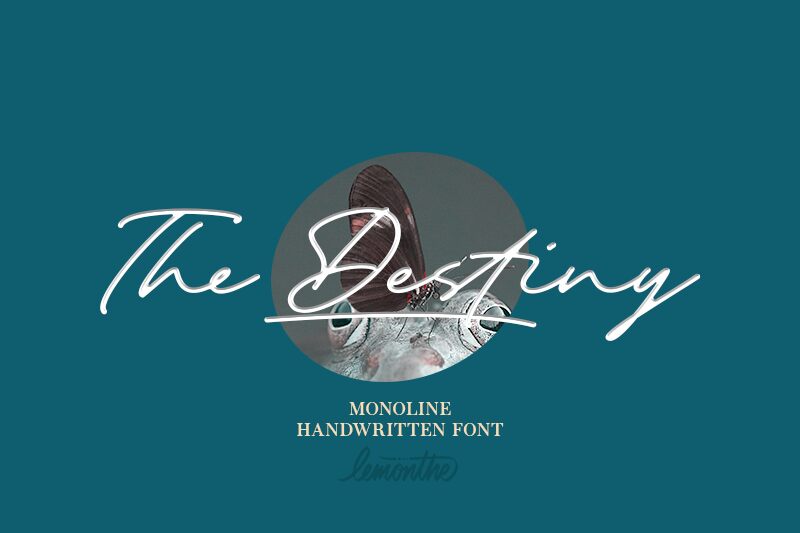
The Destiny
The Destiny, a captivating handwritten font crafted by the talented designer Lemonthe, exudes a sense of effortless elegance and genuine expression. With its fluid strokes and organic, natural flow, this font evokes a dreamlike quality, inviting the viewer to embark on a journey of artistic exploration. The Destiny's distinctive character lends itself to a wide range of design applications, from bold and impactful headings to delicate and personalized compositions.
This versatile font's adaptability shines through, making it a compelling choice for a diverse range of projects, from editorial layouts and branding initiatives to wedding invitations and personal correspondence. The Destiny's versatility allows designers to infuse their creations with a touch of authentic charm, seamlessly blending the personal and the professional.